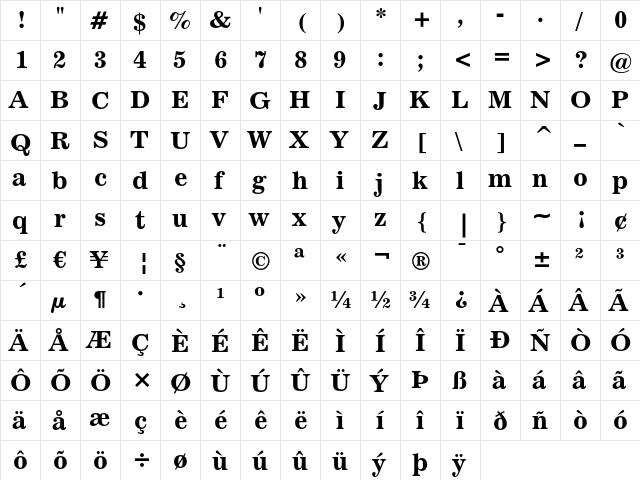
News 701 Bold
Design Context for News 701 Typeface
News 701 takes a measured approach to typography — its balanced proportions and neutral character make it a reliable workhorse for both digital and print work. The heavy weight commands attention and anchors typographic hierarchies.